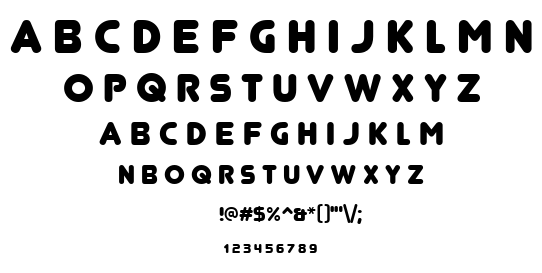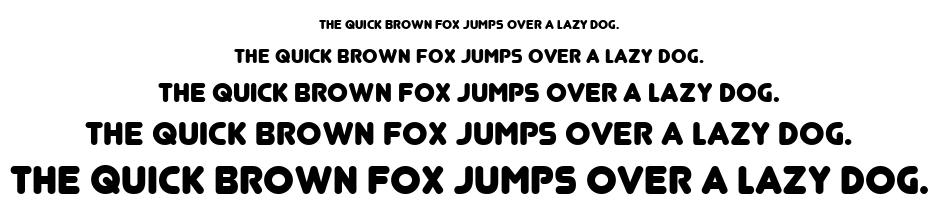
Junegull is a smart, hugworthy, allcaps rounded sans.
She’s technological, yet soft . . . like a killer robot teddy bear. Numeric ordinals, fractions and loads of math symbols make Junegull you new squishy pal. Don’t forget to read the files inside the zip for details. Updated in 2012.